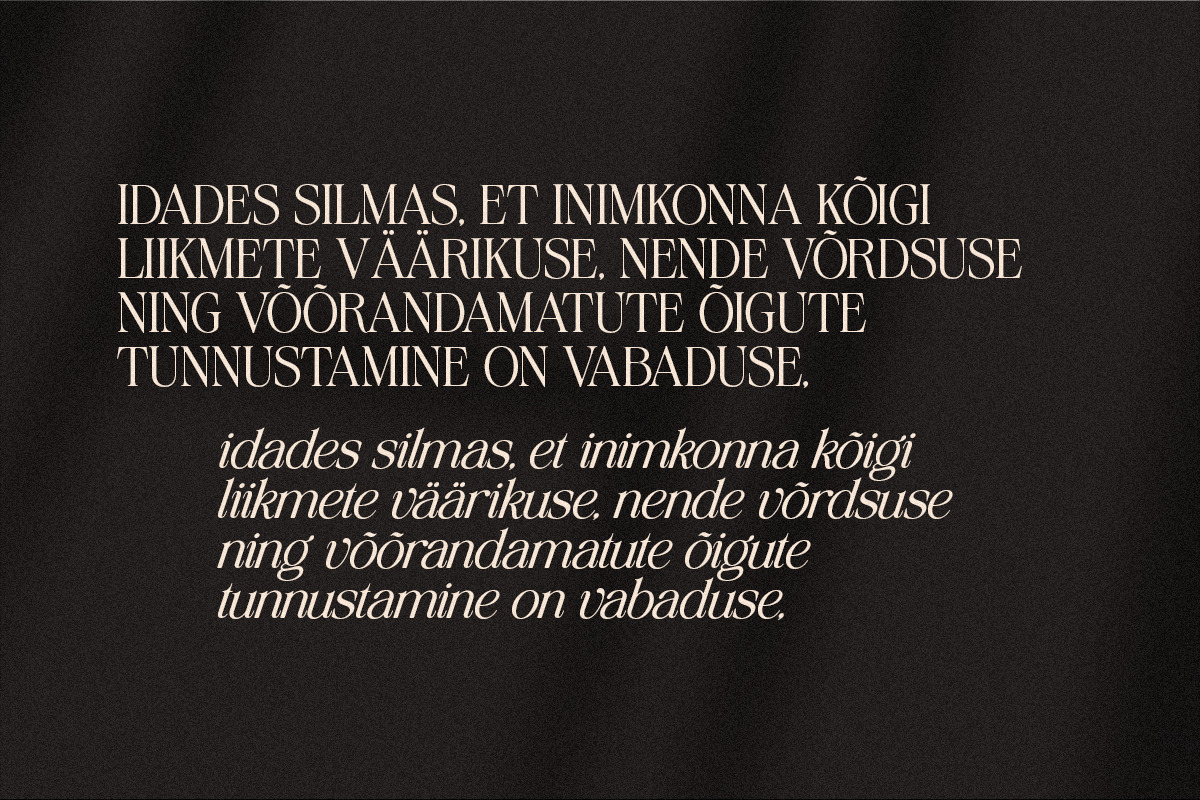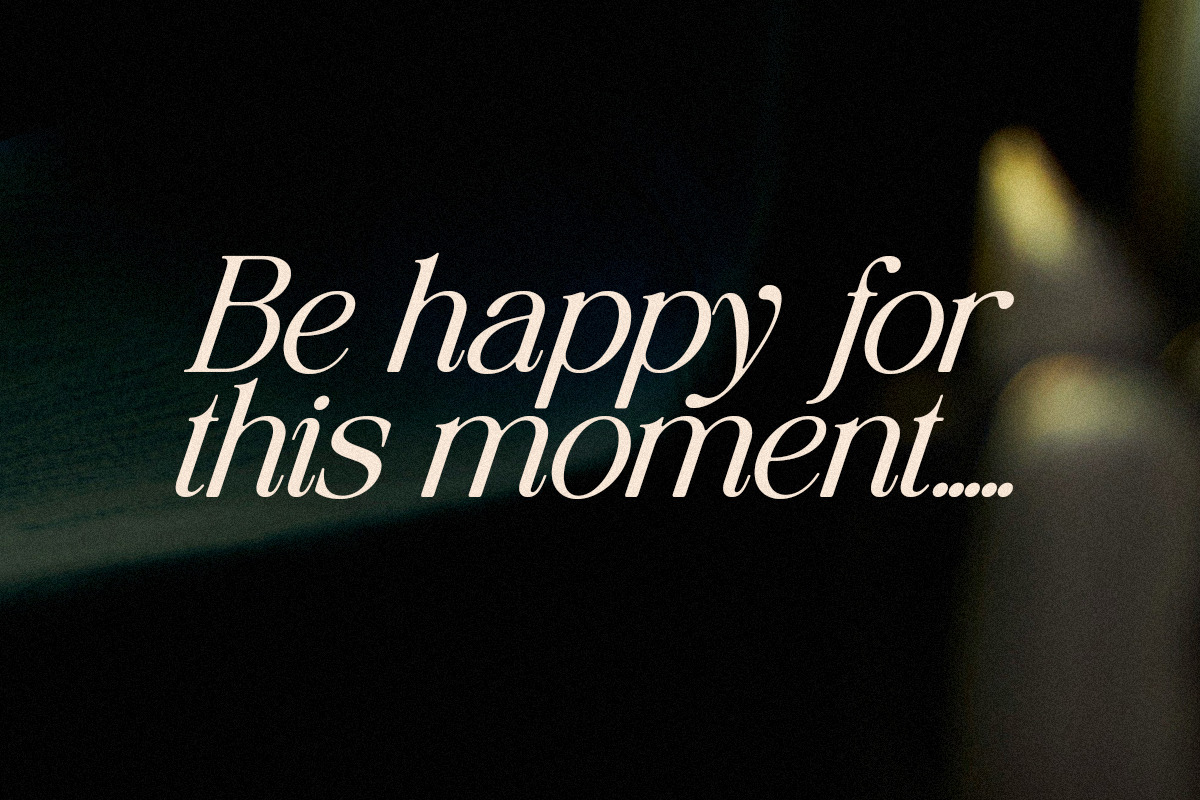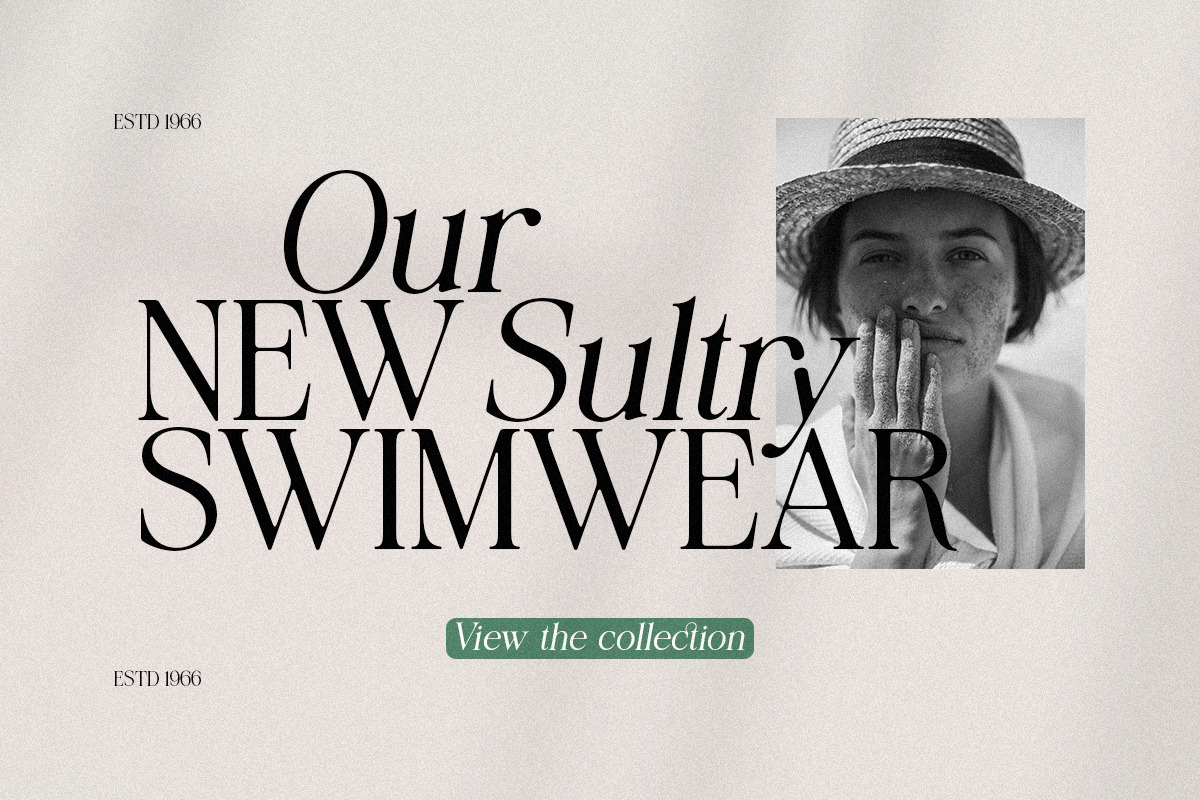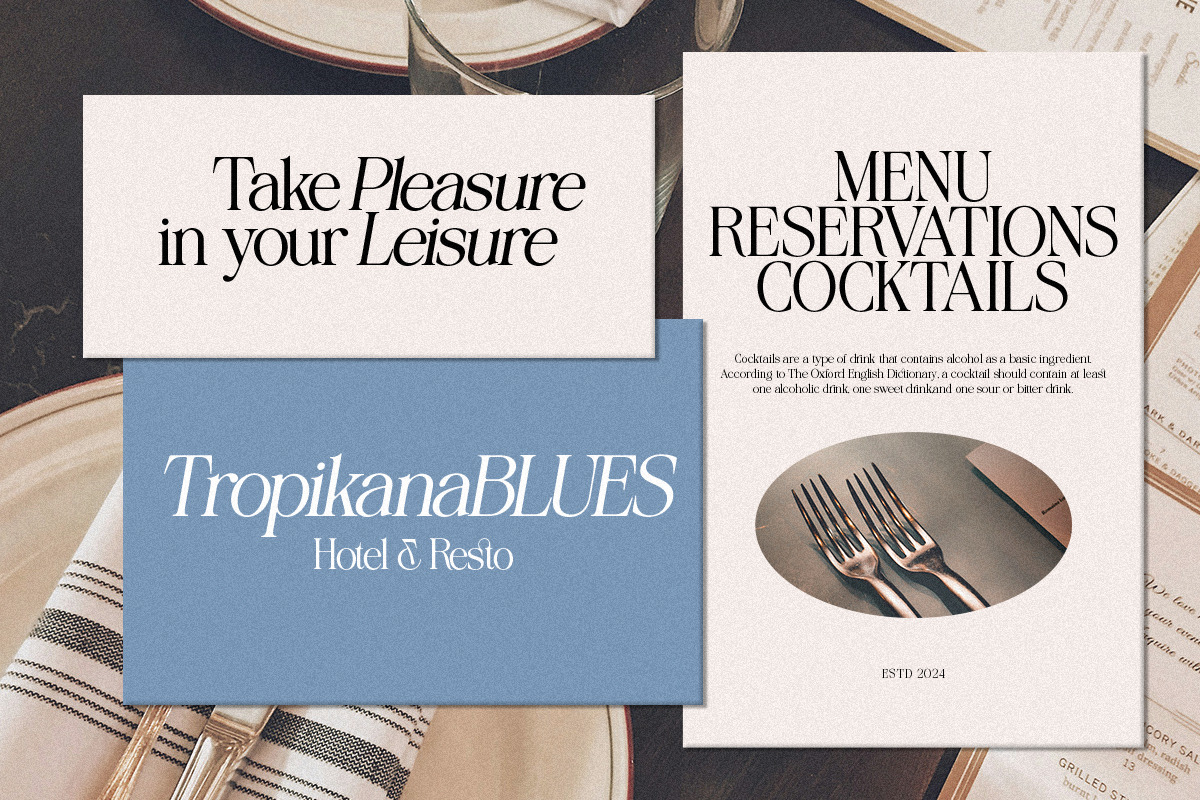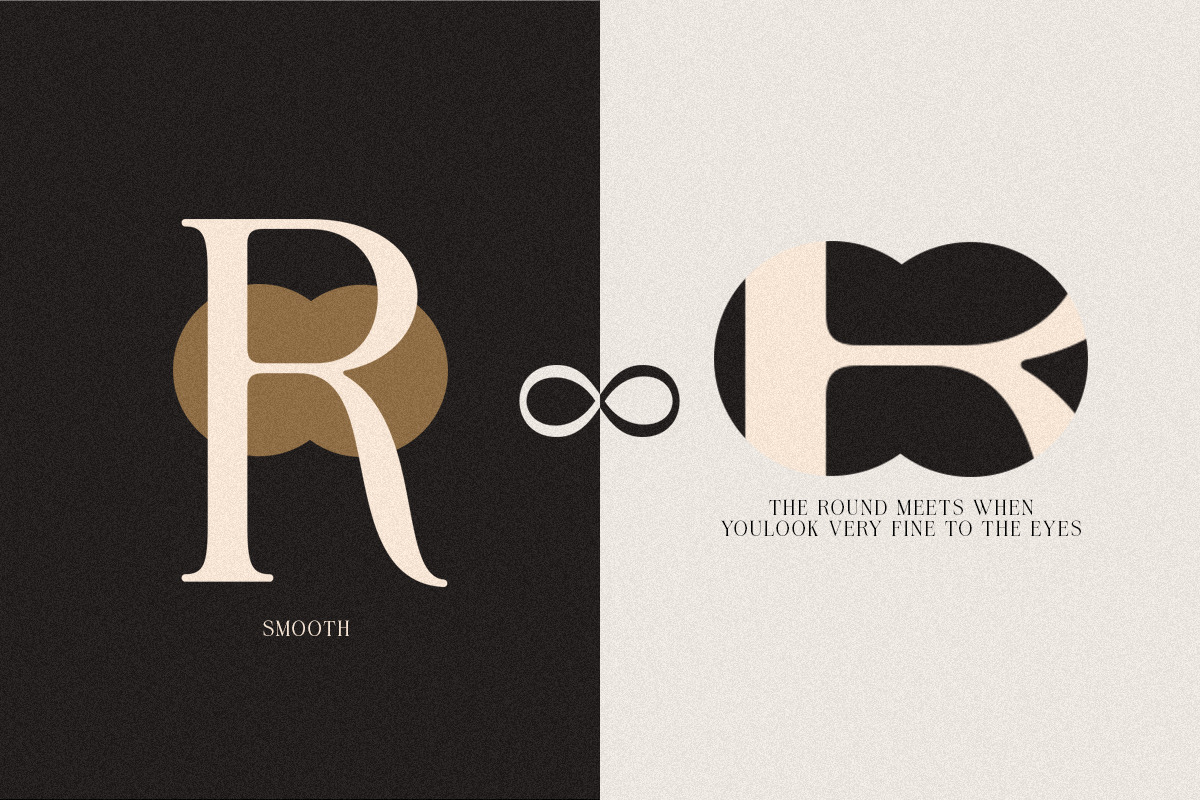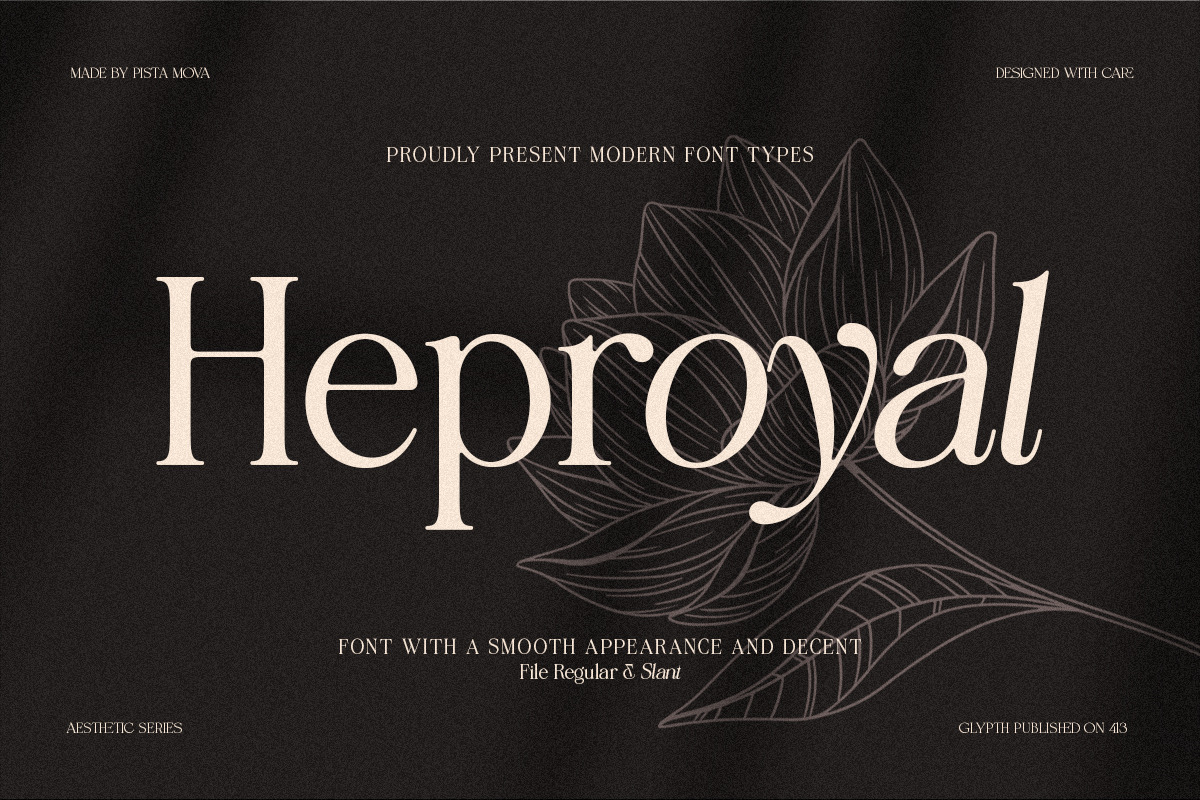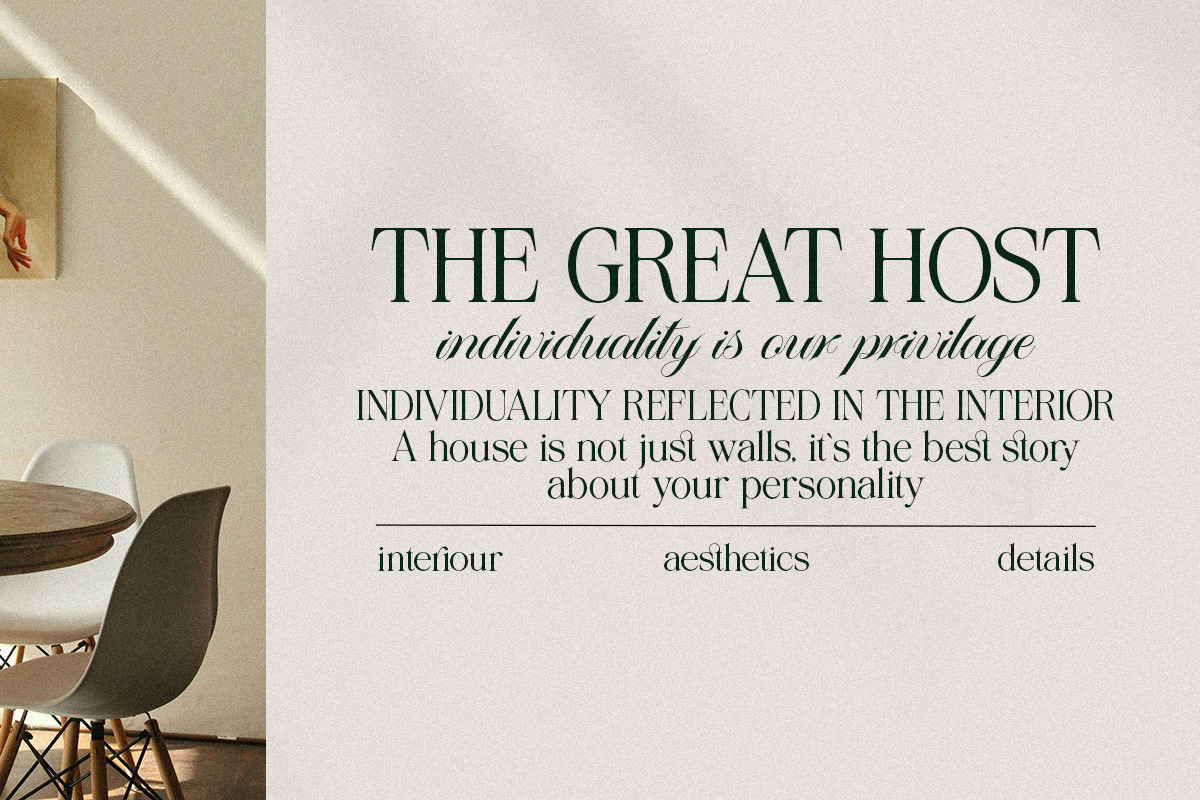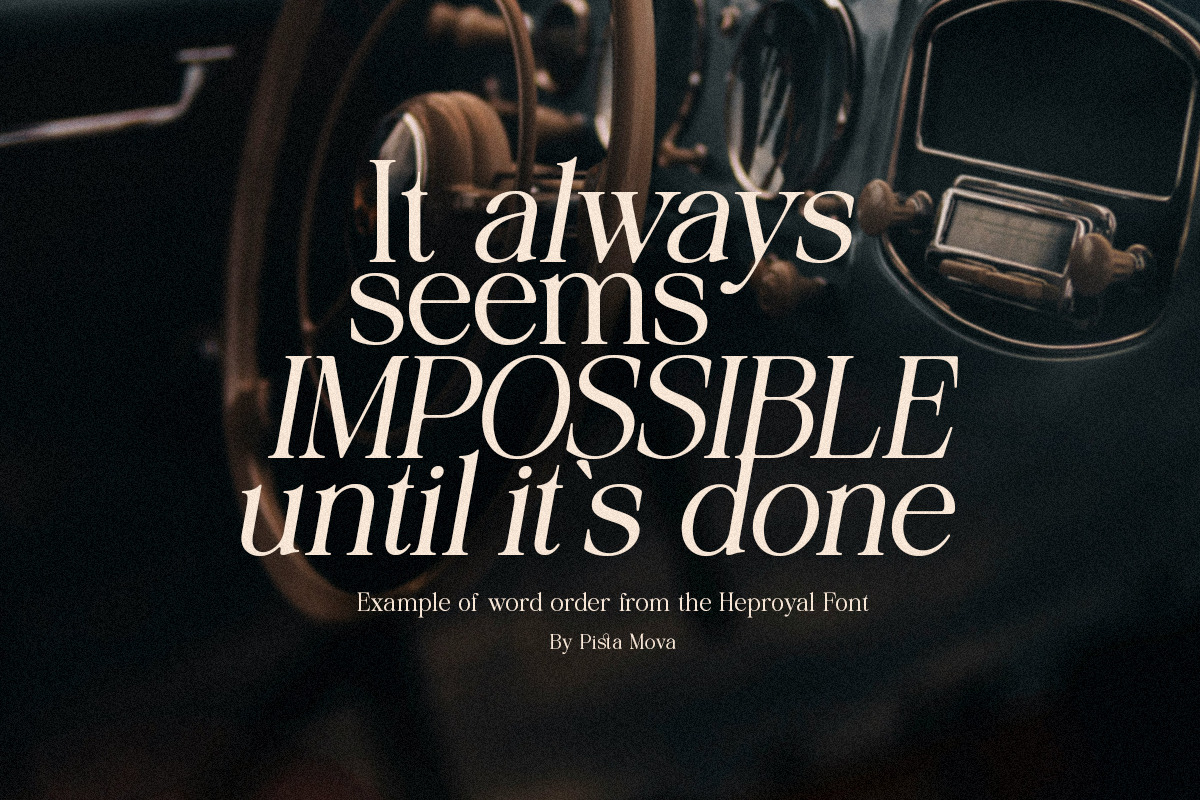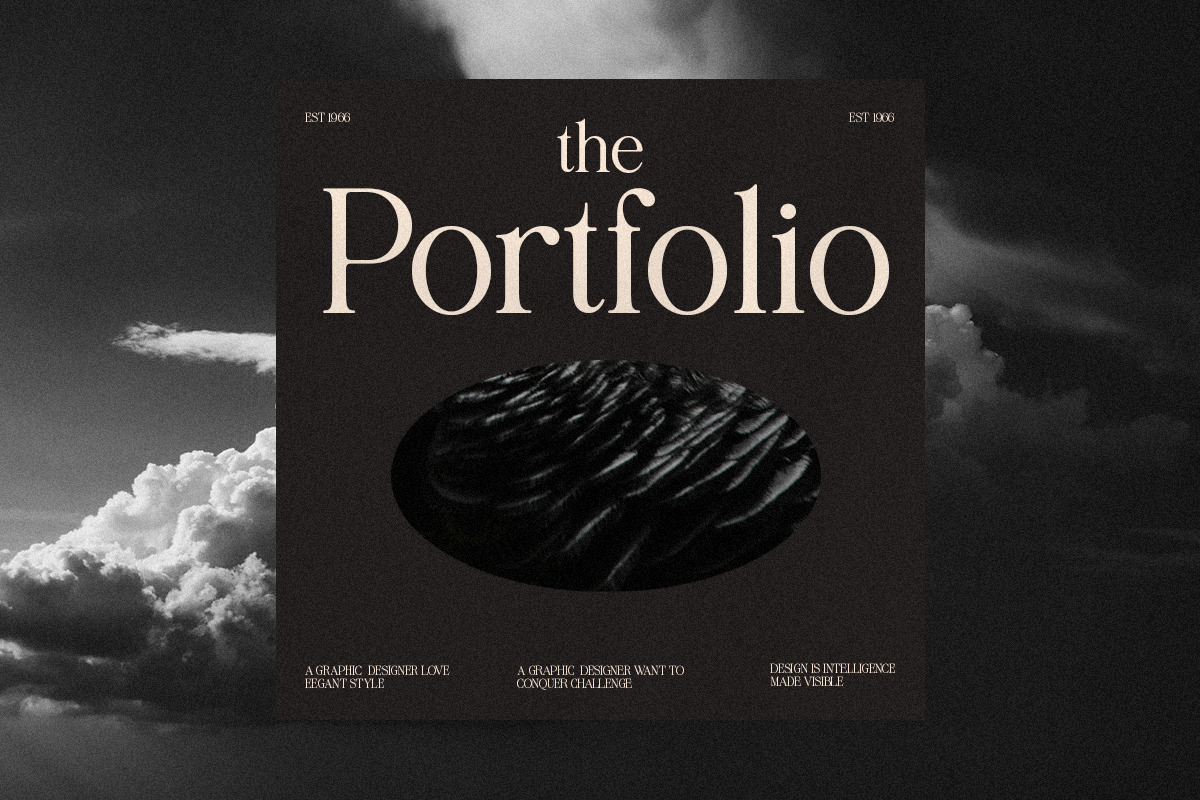
Heproyal | Luxury Font
Heproyal is a soft and very elegant font for branding and logo designs. A soft serif typeface combined with a classy and modern style. This type of font is perfect for your various needs such as branding projects, logos, wedding designs, social media posts, advertisements, product packaging, product designs, labels, photography, watermarks, invitations, stationery and any project, created in a legibility high level.